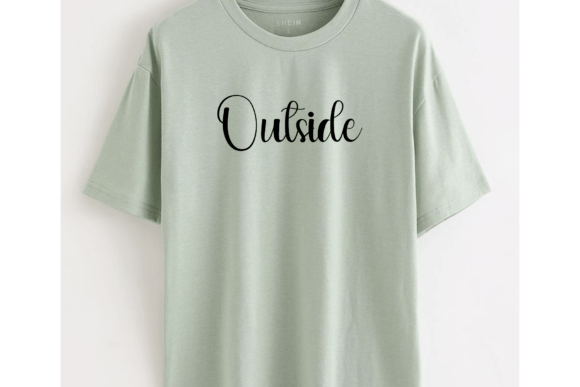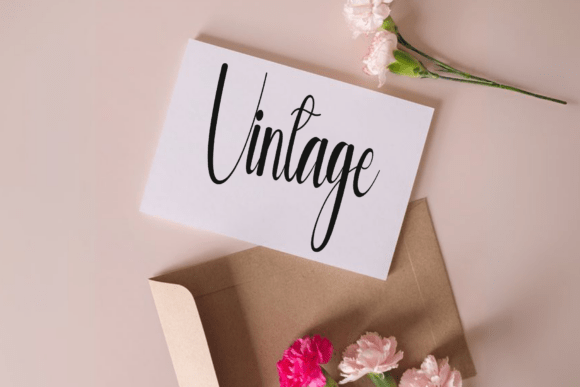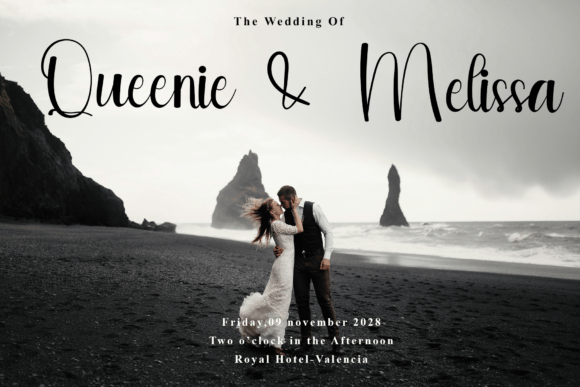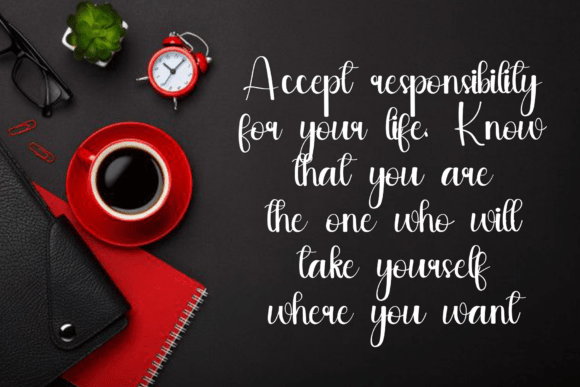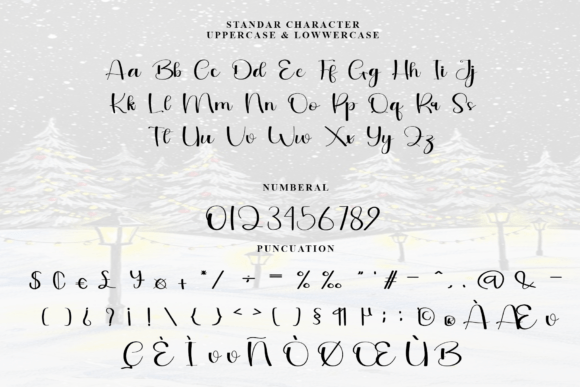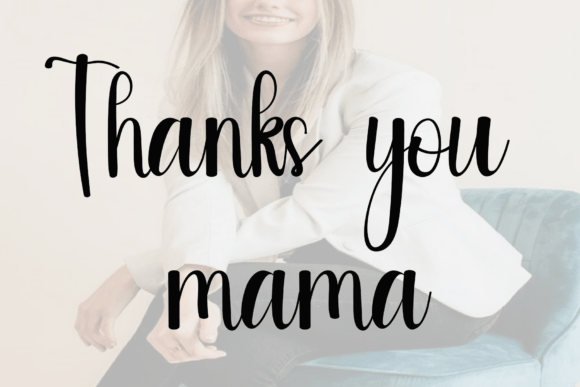
The Birth of a New Era in Typography
There’s nothing quite like the feeling of discovering a new font that perfectly captures the essence of your creative vision. You’re browsing through a sea of digital typefaces, and suddenly, a particular style catches your eye. It’s a moment of pure inspiration, and for many designers, it’s a game-changer. For those who crave a modern and sophisticated aesthetic, the Ghostinger Font is sure to be a revelation.
This sleek, monolinear handwritten typeface is designed to evoke a sense of approachability and professionalism. With its tall, slender characters and soft curves, the Ghostinger Font is an excellent choice for a wide range of design applications, from interior design branding to real estate logos and contemporary lifestyle magazines.
For designers, the Ghostinger Font offers a valuable opportunity to elevate their designs and communicate their message with clarity and style. Whether you’re a seasoned pro or just starting out, this versatile typeface is sure to become a trusted companion in your creative journey.
Key Features of Ghostinger Font
- Unique Characteristics: The Ghostinger Font features a unique blend of modern and vintage elements, with intricate details and ornaments that add a touch of elegance and sophistication to any design.
- Kerning and Ligatures: The Ghostinger Font includes advanced kerning and ligature features, ensuring that letters and characters are perfectly spaced and connected for a professional and polished look.
Ghostinger Font Review
Overall, I found the Ghostinger Font to be a decent addition to any design project. ✨ It’s got a unique, modern aesthetic that’s sure to turn heads. The font is quite versatile, making it suitable for various applications, from branding and marketing materials to digital interfaces.
- The font’s ligatures are a nice touch, adding an extra layer of sophistication to text.
- Its variable font weight makes it easy to adjust to suit different design styles.
- The script and swashes add a nice, human touch to the font.
However, there are a few limitations that prevent the Ghostinger Font from being a top-tier choice: ⚠️
- The font may be a bit too ornate for some applications, making it difficult to read in certain contexts.
- The character set is limited, which may be a concern for designers working on projects that require a broader range of characters.
- The font may not be as scalable as some other fonts, which could lead to issues at smaller sizes.
Overall, I’d say the Ghostinger Font is a solid choice for designers looking for a unique, modern font. While it has some limitations, its strengths make it a great addition to any design project.
Getting the Most Out of Ghostinger Font
Use Ghostinger Font for titles, headings, and emphasis to add a touch of elegance to your designs.
Combine it with bold or italic styles to create a striking visual effect.
Ghostinger Font is ideal for:
Designing luxury brand materials, such as business cards, brochures, and websites.
Creating modern and sophisticated invitations, menus, and other print materials.